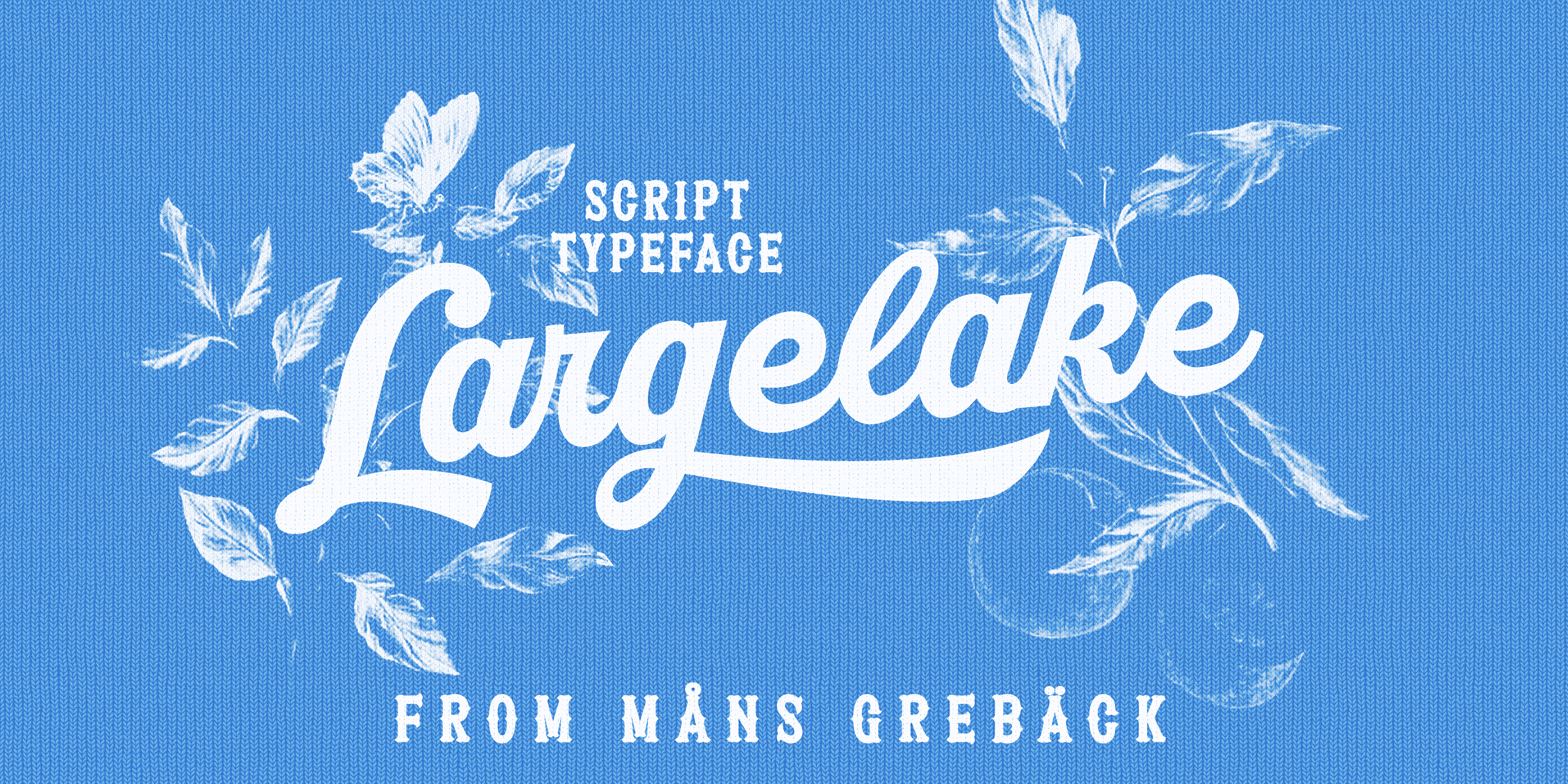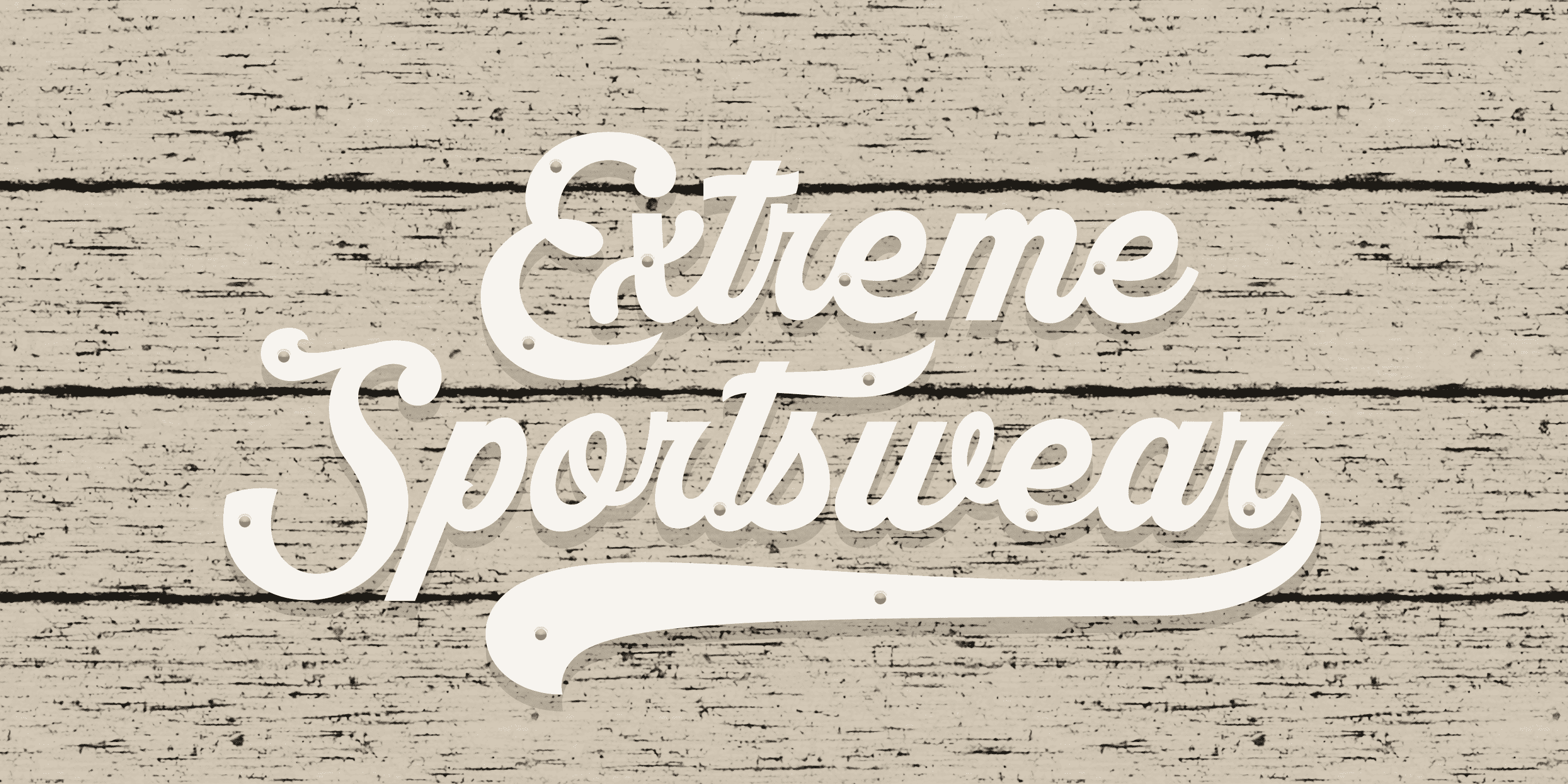
Largelake
Largelake is a bold logotype script typeface.
Drawn and created by Mans Greback in 2021, this lettering has a colourful character and confidence.
It has the appearance of a classic restaurant or hotel sign, or logo for a casino or sports event.
Use underscore _ to make a swash. Example: Baseball_
Use multiple underscores to make swashes of different styles and lengths.
Example: Fisher____
The font is built with advanced OpenType functionality and has a guaranteed top-notch quality, containing stylistic and contextual alternates, ligatures and more features; all to give you full control and customizability.
It has extensive lingual support, covering all Latin-based languages, from North Europa to South Africa, from America to South-East Asia.
It contains all characters and symbols you’ll ever need, including all punctuation and numbers, ensuring it works great for big cats and small businesses.